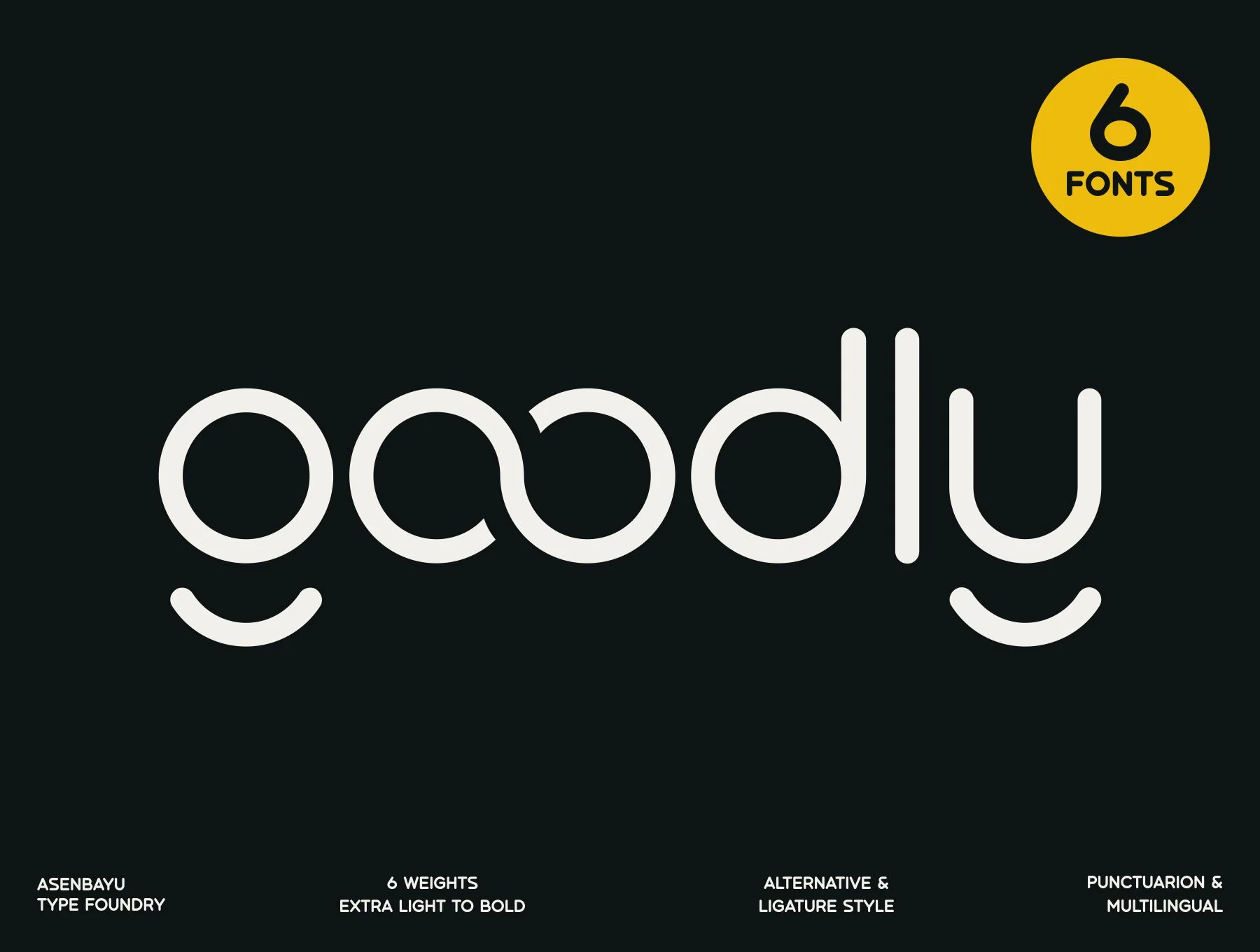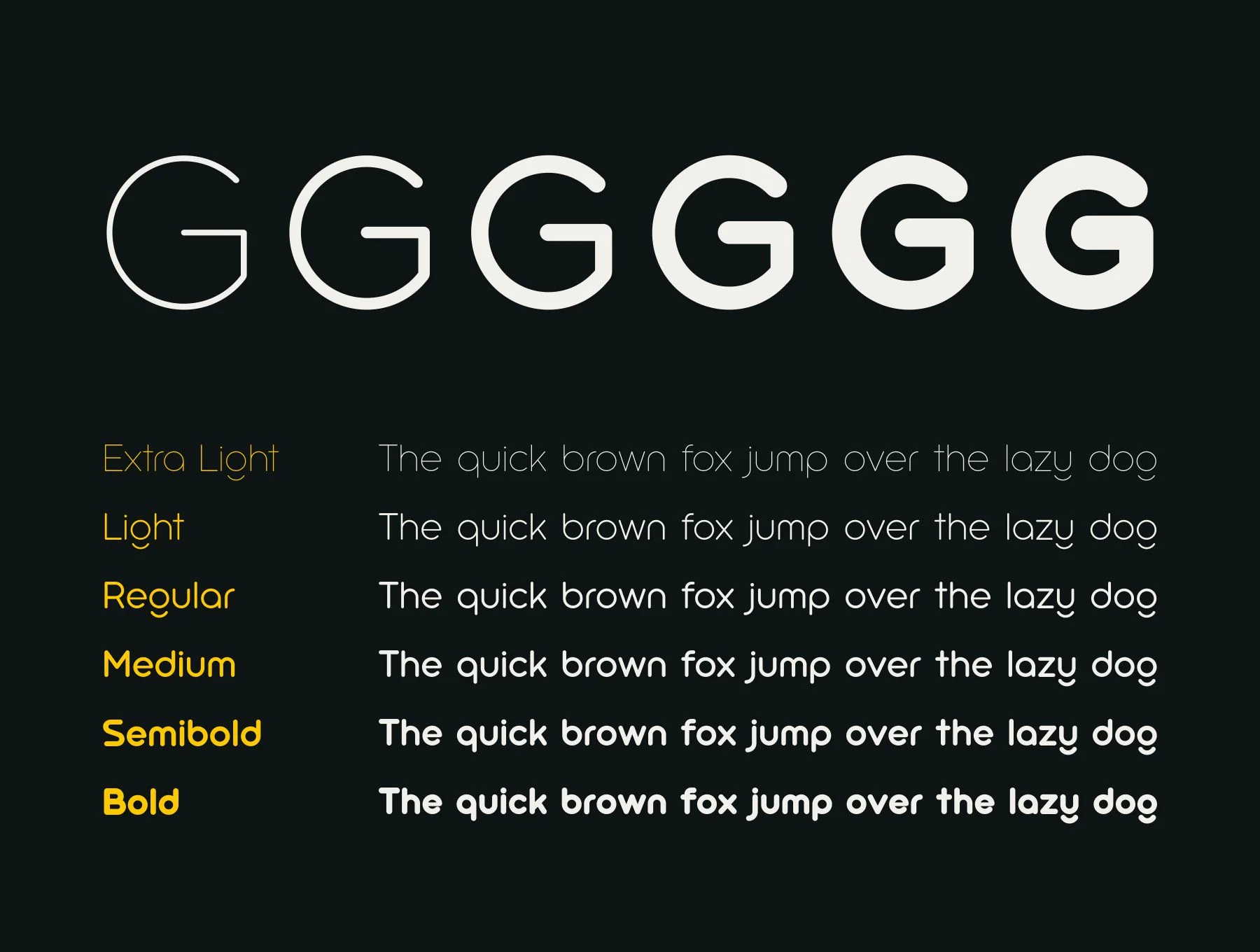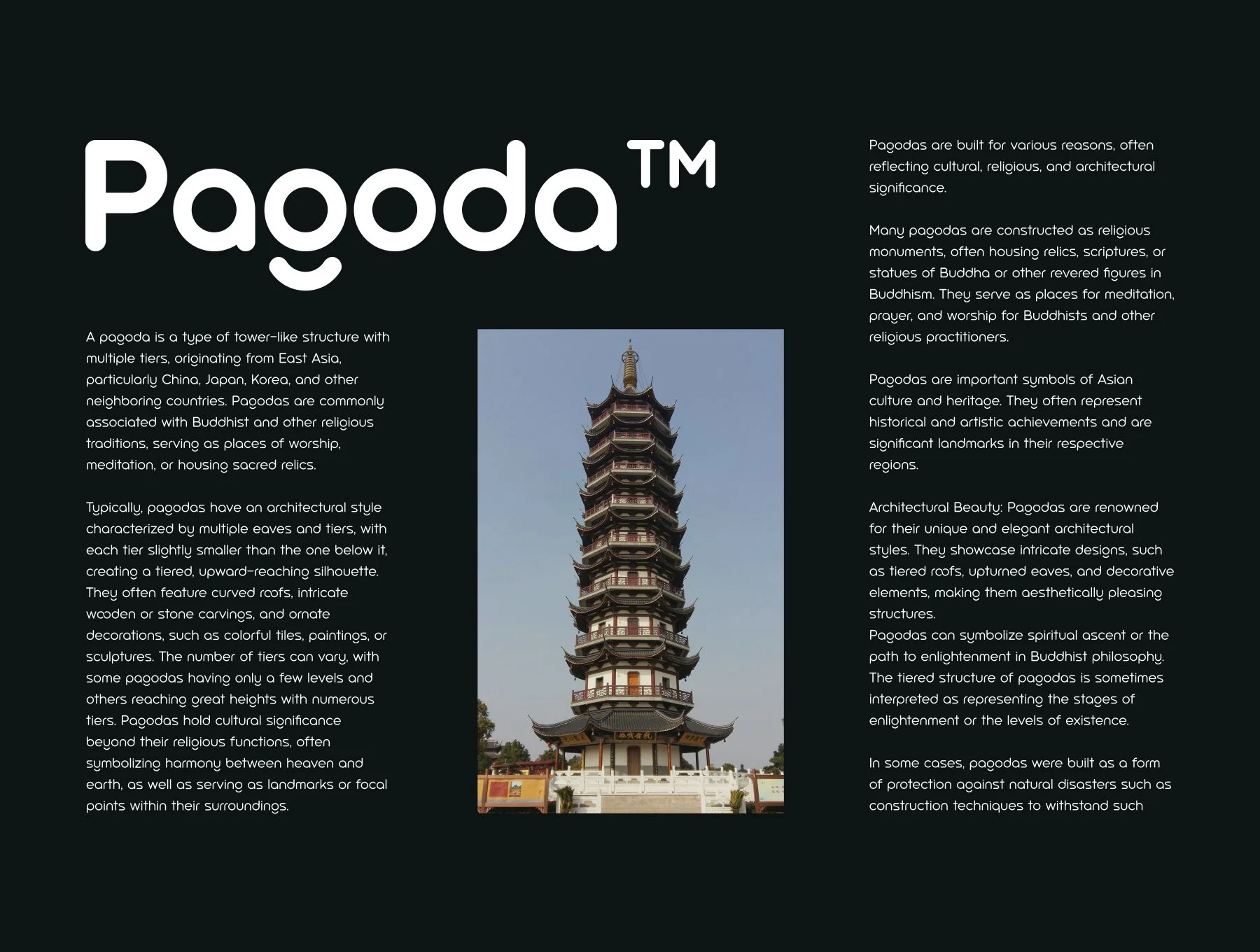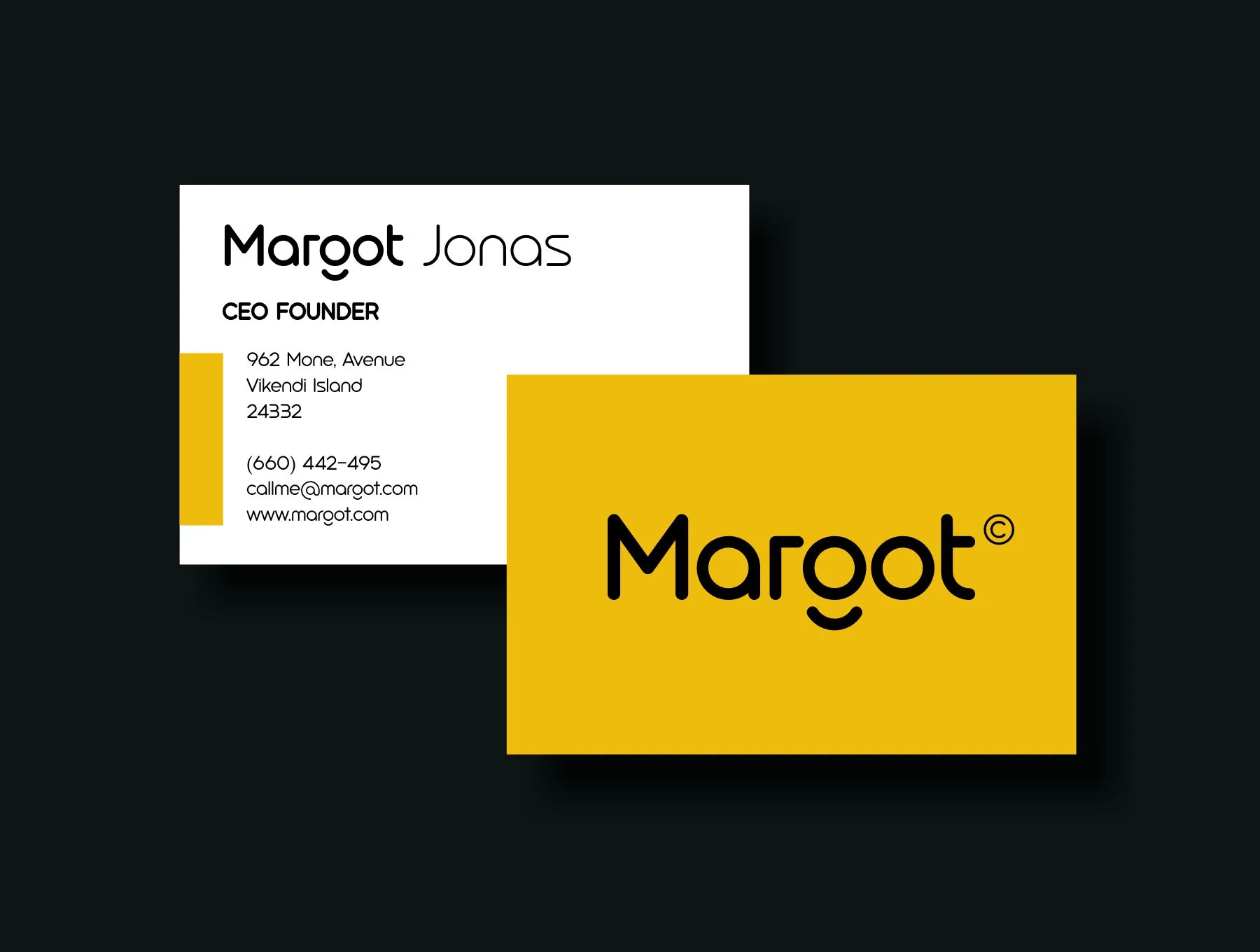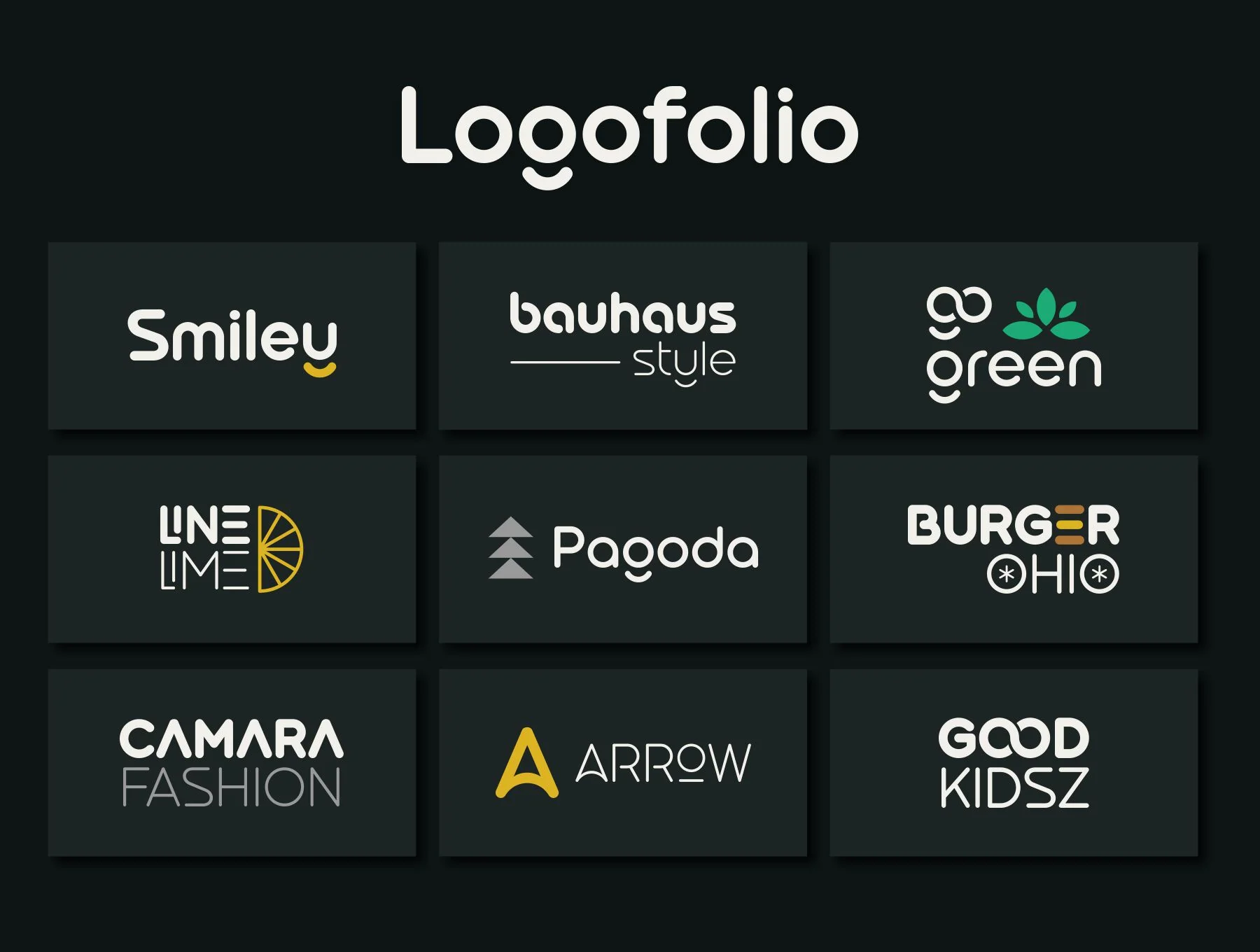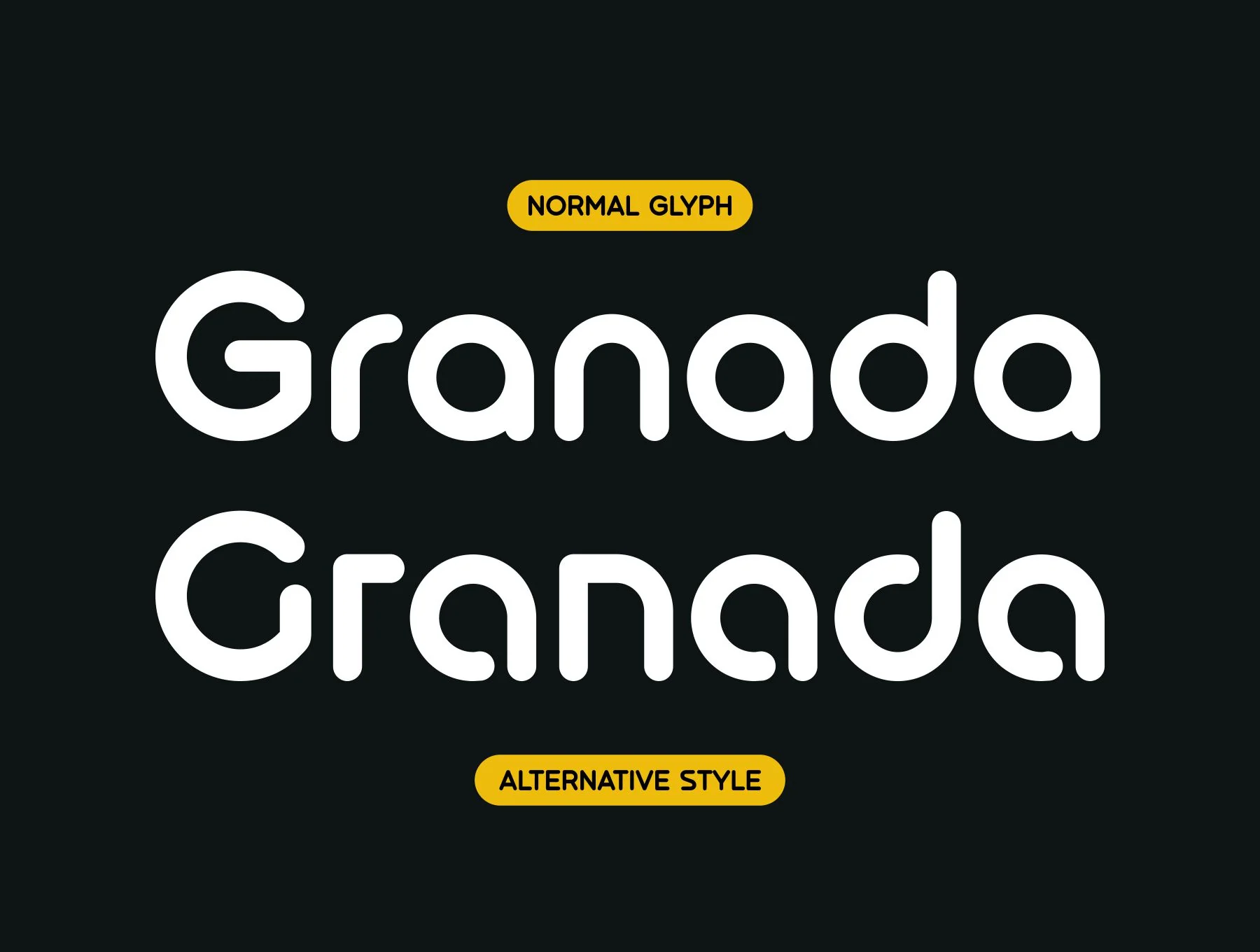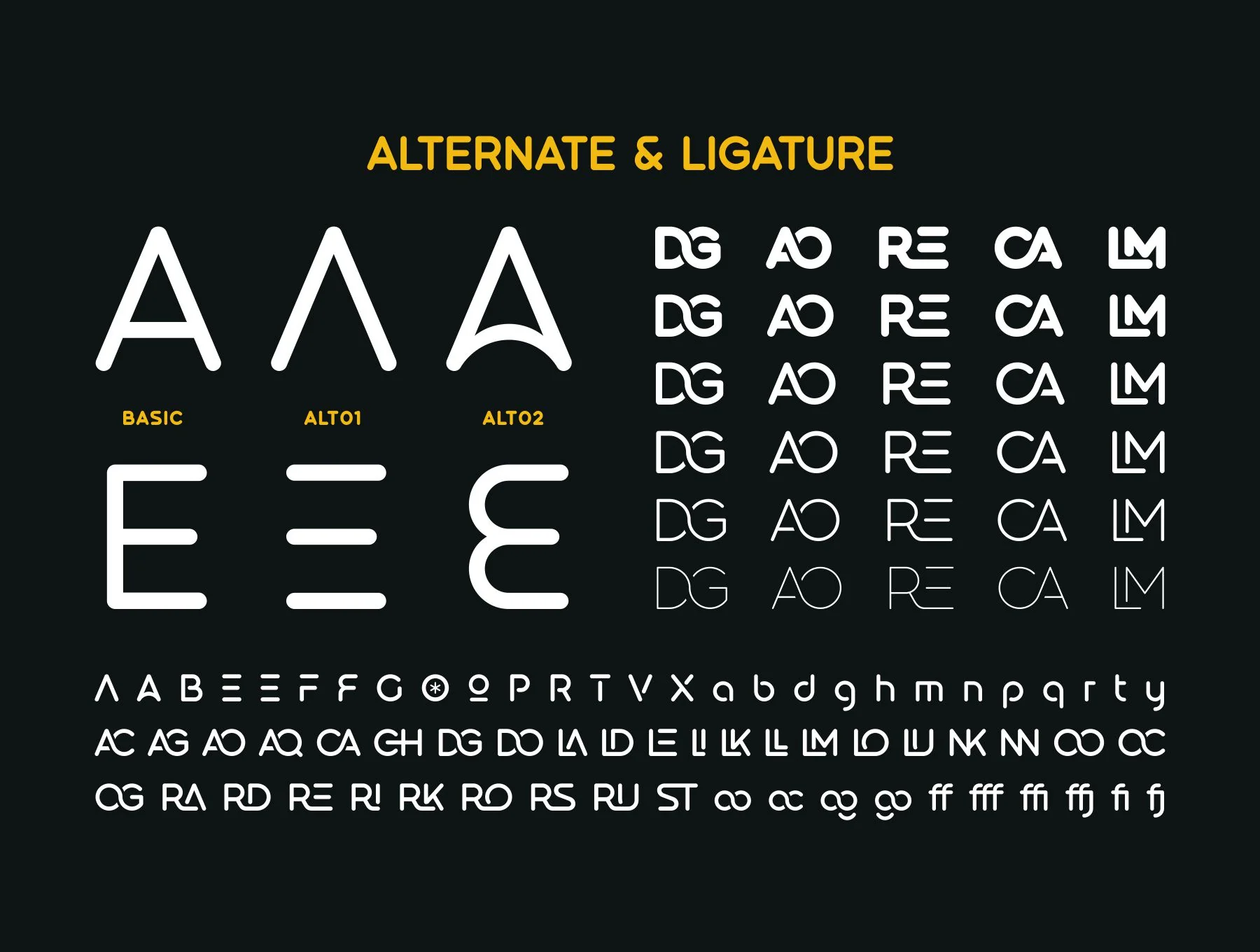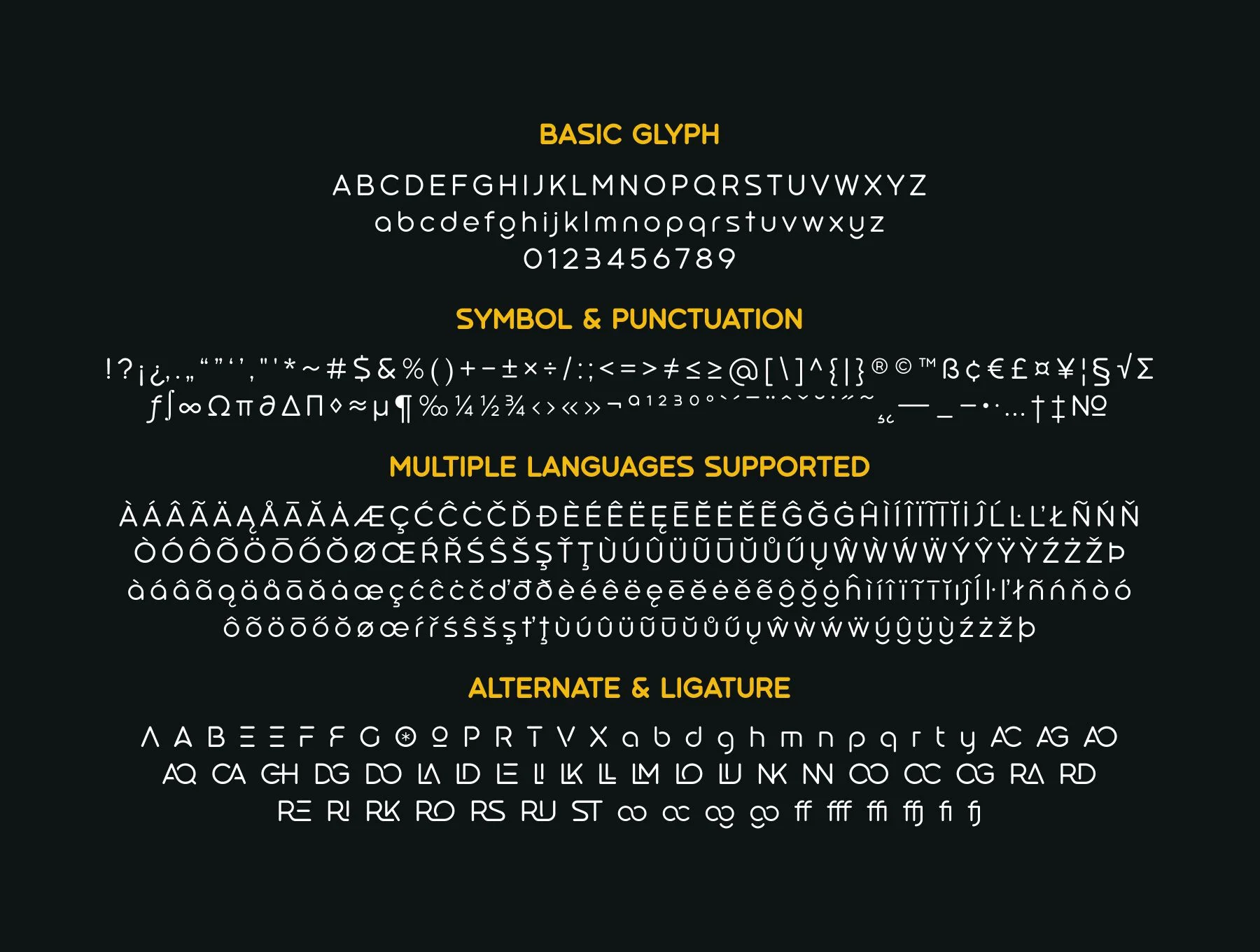
Goodly Fonts Family
Contemporary Rounded Geometric Font Family
Six typefaces
Regular glyph set
Style alternates and ligature options
Goodly is a contemporary rounded sans serif family with 6 weights, blending a modern feel with a relaxed, approachable style. Its soft curves give designs a friendly yet polished look, ideal for packaging labels, distinctive logos, branding, posters, fashion projects, and more. Includes OTF, TTF, WOFF, standard glyphs, alternates, ligatures, symbols, punctuation, and multilingual support.